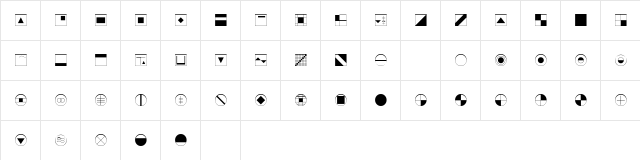
DeStijl Extras
Design Context for DeStijl Typeface
DeStijl takes a measured approach to typography — its balanced proportions and neutral character make it a reliable workhorse for both digital and print work.